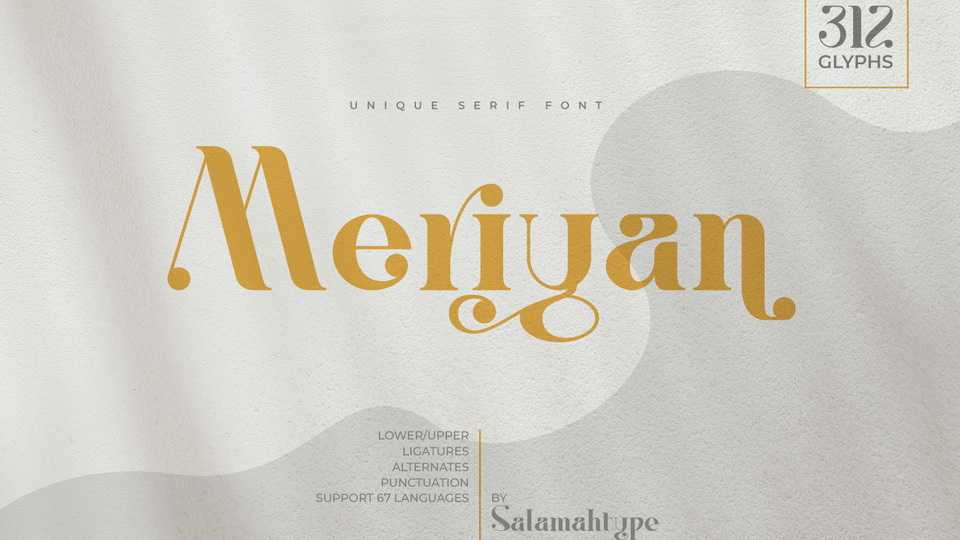
Download Meriyan font, a serif typeface with lots of unique alternate characters that can be combined with one another. Meriyan is suitable for those of you who like masculine font styles and look different.